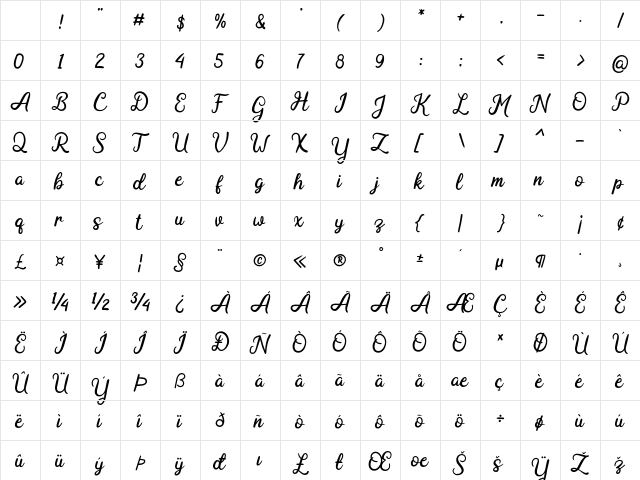
Complete Adeghio Dafont Regular glyph index. Displaying only characters natively supported by Adeghio Dafont Regular font.
Adeghio Dafont is a composed and adaptable typeface that performs quietly and consistently across a wide range of design contexts.